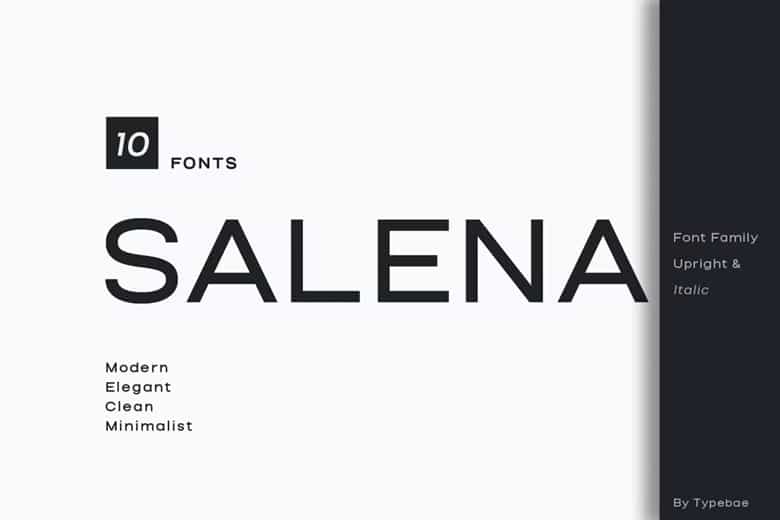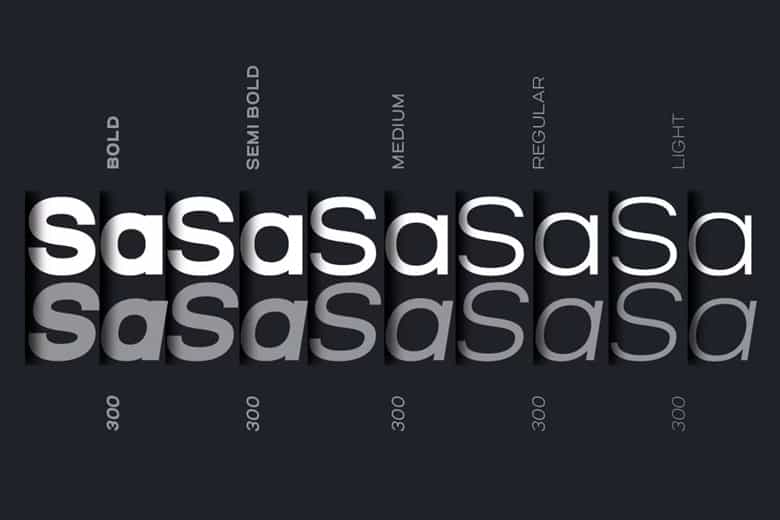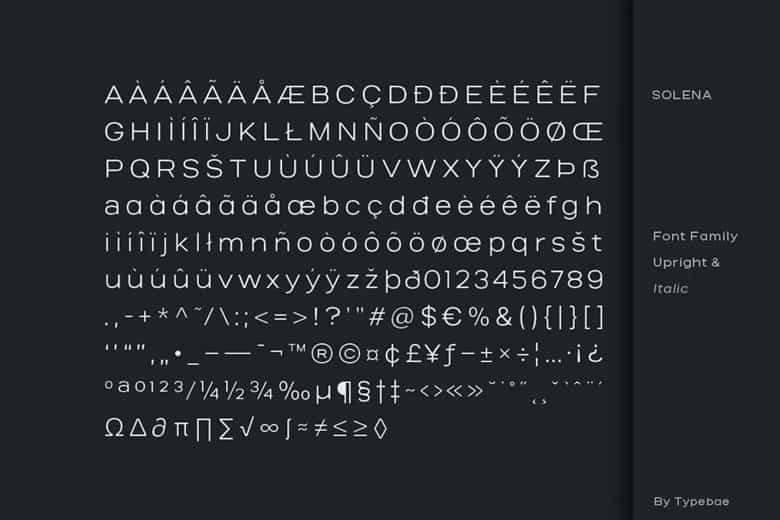
Salena is a modernist font family that uses a sans serif font style and is intended to be a classy and visually appealing one. It is ideal to use in logotypes, branding, headlines, and editing because of its clean and refined lines. Having a well composed structure and a modern taste, Salena brings elegance to any design but it is also varied and so legible. Perfect typographic solution when the designer wants something timeless, and clean.